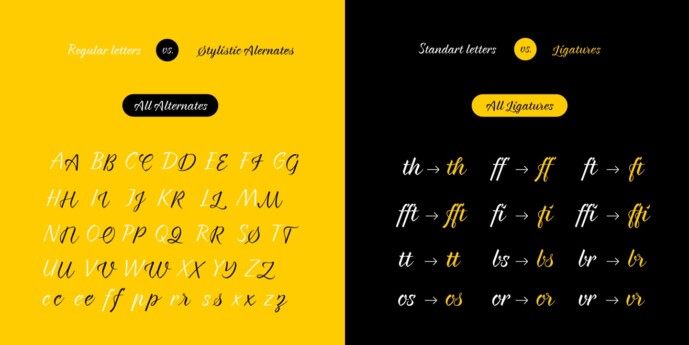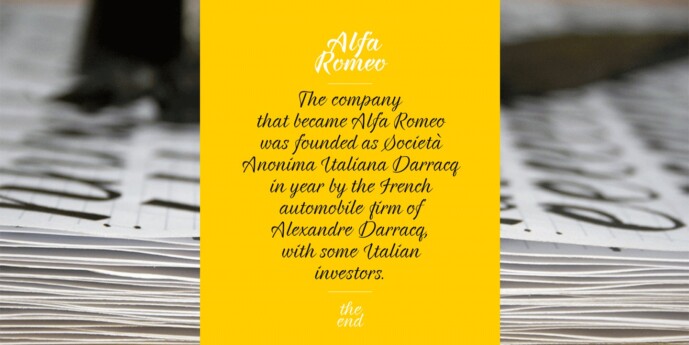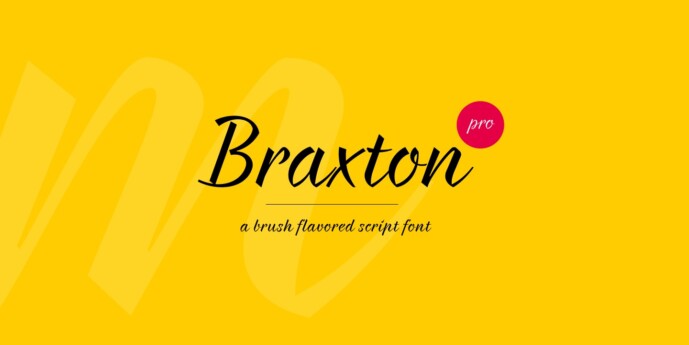
Braxton Font
Braxton Font – brush flavored script font family includes 5 unique font weights. The font family is characterized by excellent legibility in both – web & print design areas, well-finished calligraphic designs, optimized kerning etc. Braxton is most suitable for headlines of all sizes, as well as for text blocks that come in both maximum and minimum variations. The font styles are applicable for any type of graphic design – web, print, motion graphics etc and perfect for t-shirts and other items like posters, logos.